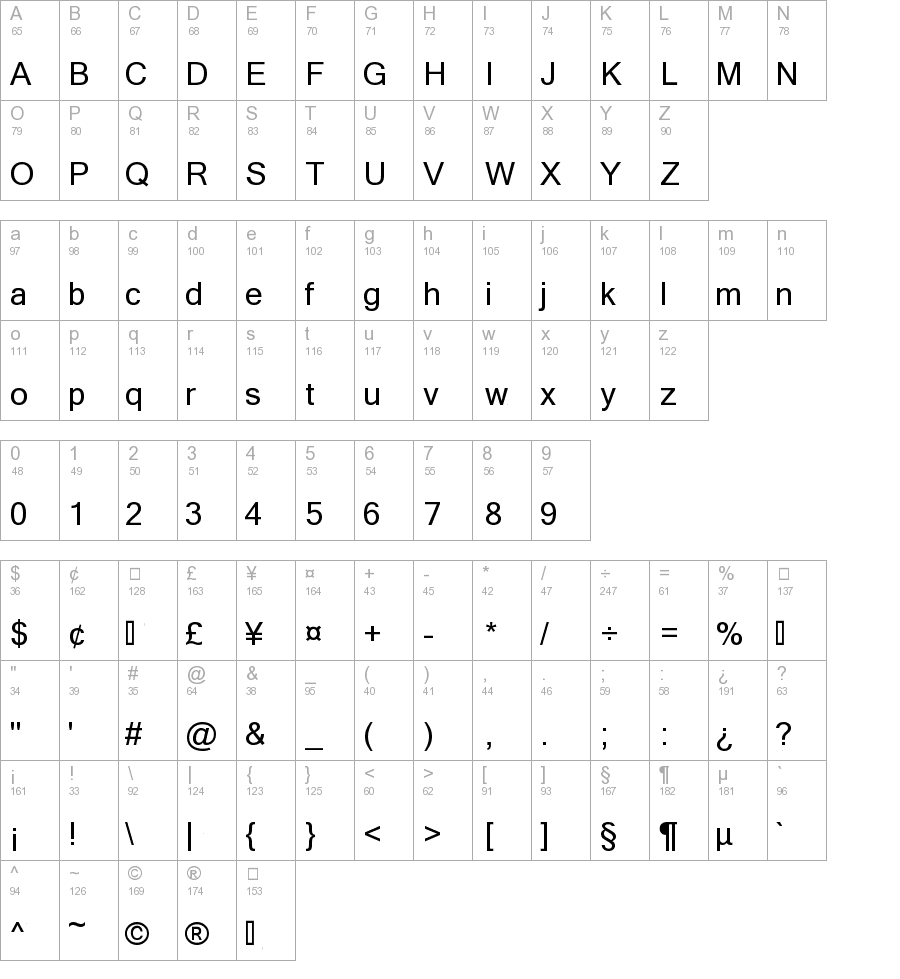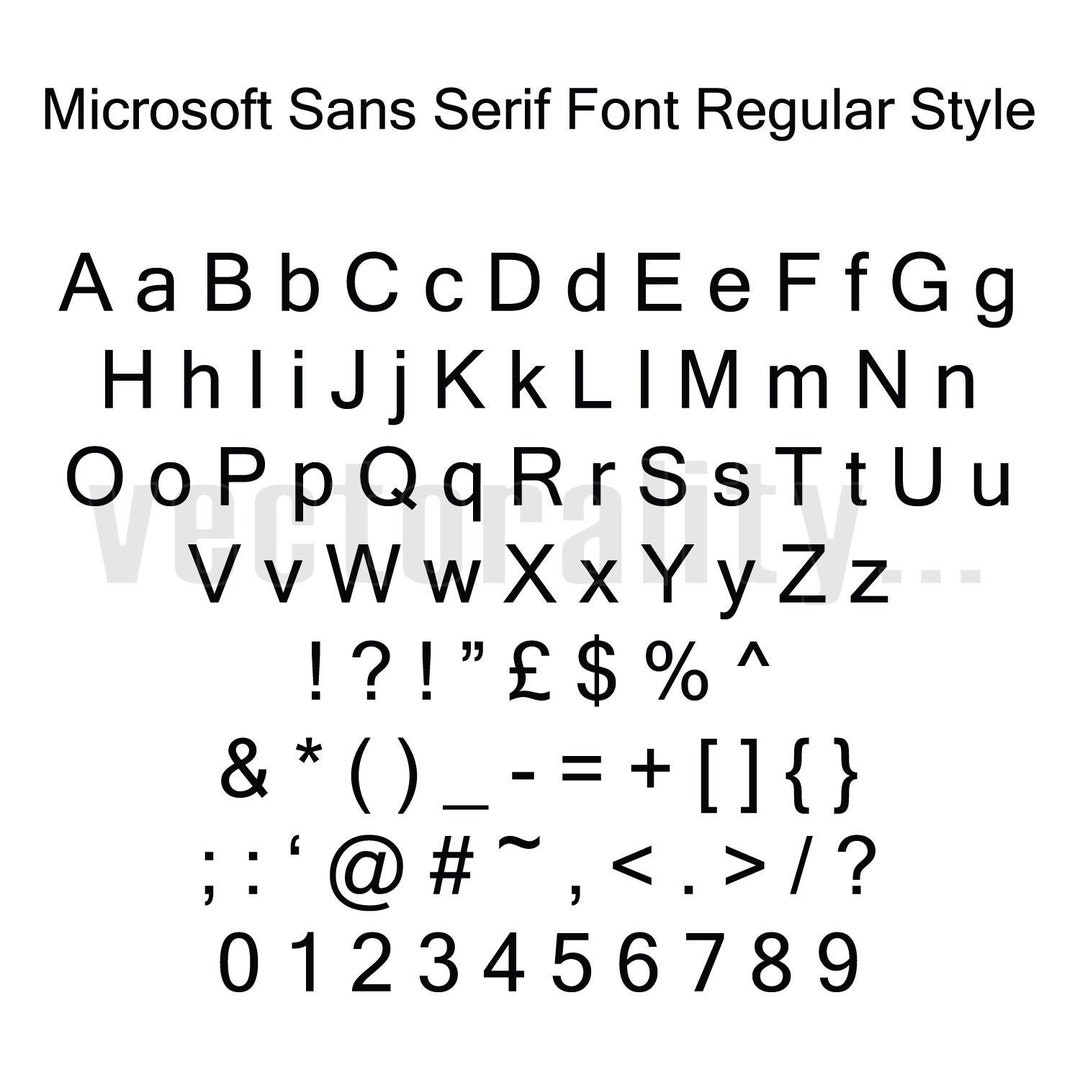
Ms Sans Common Font Type
Ms Sans Common Font Type - Go back to level list. Web ms sans, a common font type crossword clue. Web ms sans serif is the default system font on windows 3.1, windows 95, windows nt 4.0, windows 98, and windows me. S e r i f. The crossword solver found 30 answers to ms sans, a common font. Web ms sans ___, a common font type. The answer to this question:
The crossword solver found 30 answers to ms sans, a common font. Web ms sans, a common font type crossword clue. The answer to this question: Web ms sans ___, a common font type. S e r i f. Go back to level list. Web ms sans serif is the default system font on windows 3.1, windows 95, windows nt 4.0, windows 98, and windows me.
Web ms sans, a common font type crossword clue. S e r i f. Web ms sans serif is the default system font on windows 3.1, windows 95, windows nt 4.0, windows 98, and windows me. Web ms sans ___, a common font type. The answer to this question: The crossword solver found 30 answers to ms sans, a common font. Go back to level list.
Microsoft Sans Serif Regular truetype font
Web ms sans serif is the default system font on windows 3.1, windows 95, windows nt 4.0, windows 98, and windows me. Web ms sans, a common font type crossword clue. The answer to this question: S e r i f. Web ms sans ___, a common font type.
Web ms sans serif is the default system font on windows 3.1, windows 95, windows nt 4.0, windows 98, and windows me. Web ms sans, a common font type crossword clue. Web ms sans ___, a common font type. The answer to this question: The crossword solver found 30 answers to ms sans, a common font.
Web ms sans serif is the default system font on windows 3.1, windows 95, windows nt 4.0, windows 98, and windows me. The crossword solver found 30 answers to ms sans, a common font. Web ms sans ___, a common font type. The answer to this question: Web ms sans, a common font type crossword clue.
Web ms sans serif is the default system font on windows 3.1, windows 95, windows nt 4.0, windows 98, and windows me. Web ms sans, a common font type crossword clue. Web ms sans ___, a common font type. The crossword solver found 30 answers to ms sans, a common font. The answer to this question:
Web ms sans ___, a common font type. S e r i f. Web ms sans serif is the default system font on windows 3.1, windows 95, windows nt 4.0, windows 98, and windows me. The crossword solver found 30 answers to ms sans, a common font. Web ms sans, a common font type crossword clue.
The crossword solver found 30 answers to ms sans, a common font. Web ms sans ___, a common font type. Go back to level list. S e r i f. The answer to this question:
Web ms sans serif is the default system font on windows 3.1, windows 95, windows nt 4.0, windows 98, and windows me. Go back to level list. Web ms sans ___, a common font type. The crossword solver found 30 answers to ms sans, a common font. Web ms sans, a common font type crossword clue.
Web ms sans serif is the default system font on windows 3.1, windows 95, windows nt 4.0, windows 98, and windows me. The crossword solver found 30 answers to ms sans, a common font. S e r i f. Go back to level list. Web ms sans, a common font type crossword clue.
Microsoft Sans Serif Font Regular Style Alphabet Letters Etsy
Web ms sans serif is the default system font on windows 3.1, windows 95, windows nt 4.0, windows 98, and windows me. Go back to level list. The answer to this question: Web ms sans, a common font type crossword clue. S e r i f.
Microsoft Sans Serif Regular Download For Free, View Sample Text
Go back to level list. Web ms sans, a common font type crossword clue. S e r i f. Web ms sans serif is the default system font on windows 3.1, windows 95, windows nt 4.0, windows 98, and windows me. Web ms sans ___, a common font type.
The Answer To This Question:
Go back to level list. Web ms sans ___, a common font type. Web ms sans serif is the default system font on windows 3.1, windows 95, windows nt 4.0, windows 98, and windows me. The crossword solver found 30 answers to ms sans, a common font.
Web Ms Sans, A Common Font Type Crossword Clue.
S e r i f.